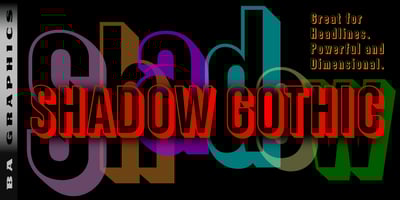
Shadow Gothic Font Family was designed by Bob Alonso and published by BA Graphics. Shadow Gothic contains 1 styles and family package options. Shadow Gothic great for headlines powerful and dimensional.